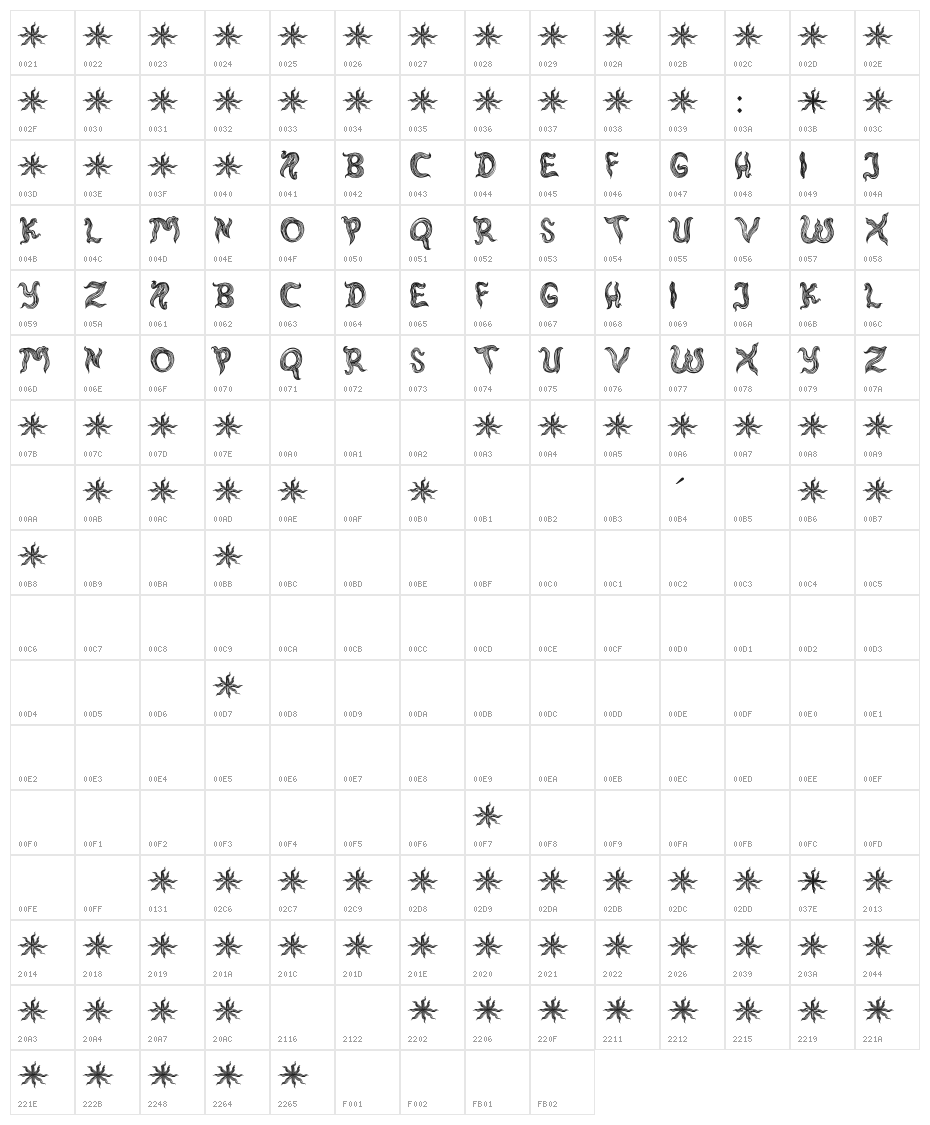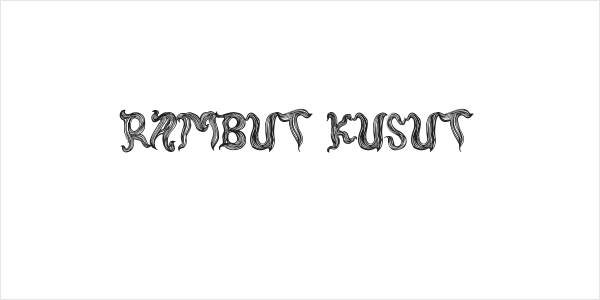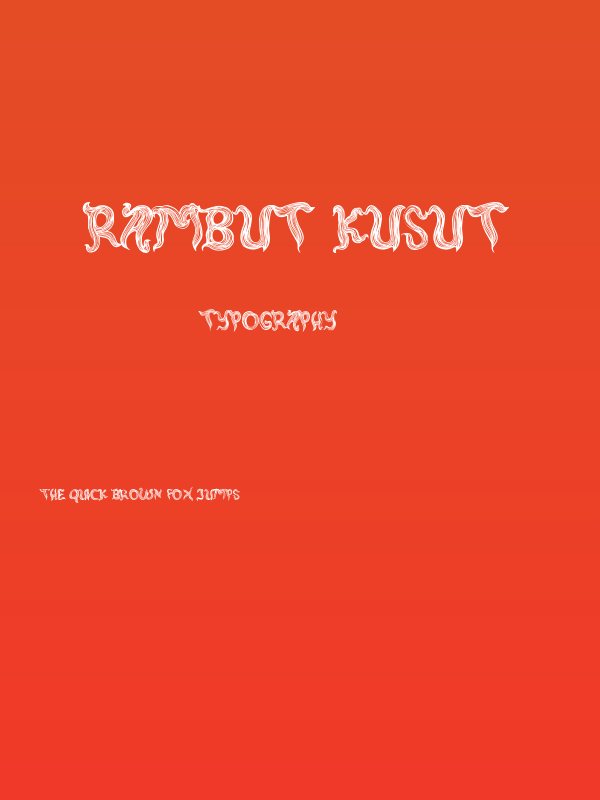
rambut kusut Font
rambut kusut Description
This font features a highly decorative and intricate design, reminiscent of tangled strands or flowing hair. Each letter is crafted with a series of swirling, overlapping lines that create a sense of movement and complexity. The style is bold and eye-catching, making it suitable for projects that require a strong visual impact. The characters have a unique, almost organic feel, with varying line thicknesses that add depth and texture. This font is not suited for body text due to its elaborate design but excels in creative and artistic applications.
| Use Case | Headlines, Logos, Artistic projects |
| Proposed Projects | Ideal for artistic posters, album covers, branding for creative industries, and decorative headings. |